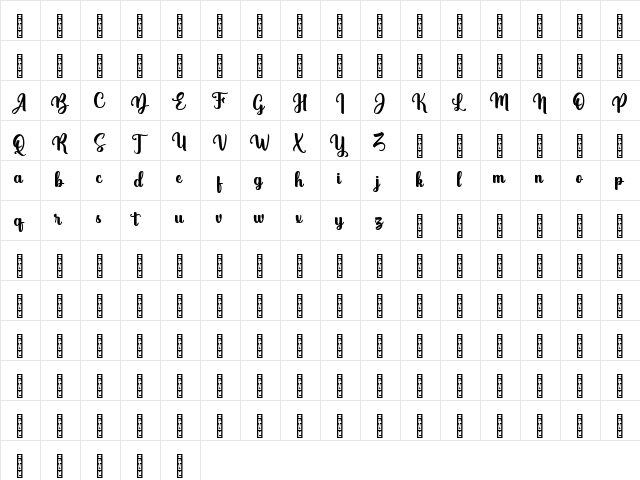
Brights Diamond Regular
Design Context for Brights Diamond Typeface
Brights Diamond is a composed and adaptable typeface that performs quietly and consistently across a wide range of design contexts.